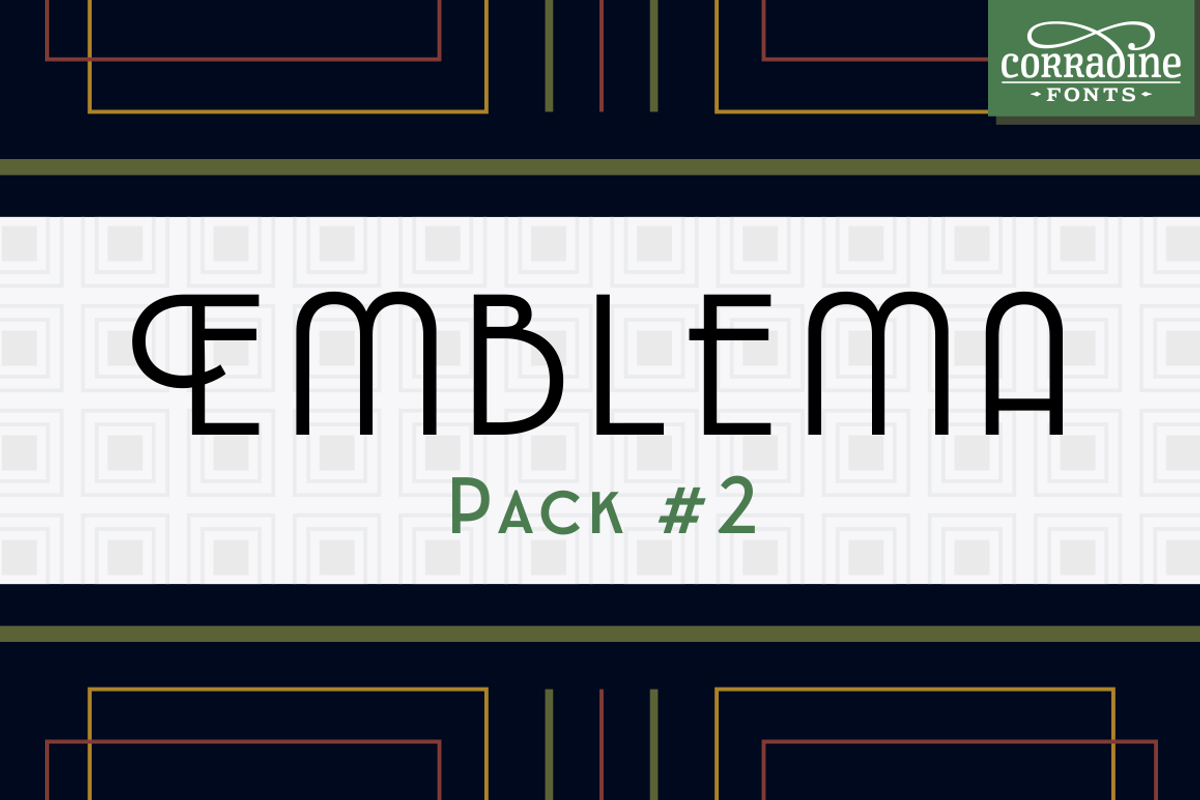
Emblema Font Pack #2 Free Download is a versatile collection of fonts designed for modern branding and design projects. With a mix of vintage-inspired, bold letterforms and clean, sharp lines, this pack is perfect for logos, badges, retro branding, posters, and high-impact print and digital content. The pack includes a variety of styles, giving you the flexibility to create dynamic compositions that stand out.
Using the Emblema Font Pack #2 Free Download allows you to create strong, attention-grabbing designs with a professional edge. Whether you're designing a vintage logo, a trendy website header, or packaging, this font pack adds a timeless yet contemporary touch to your work.